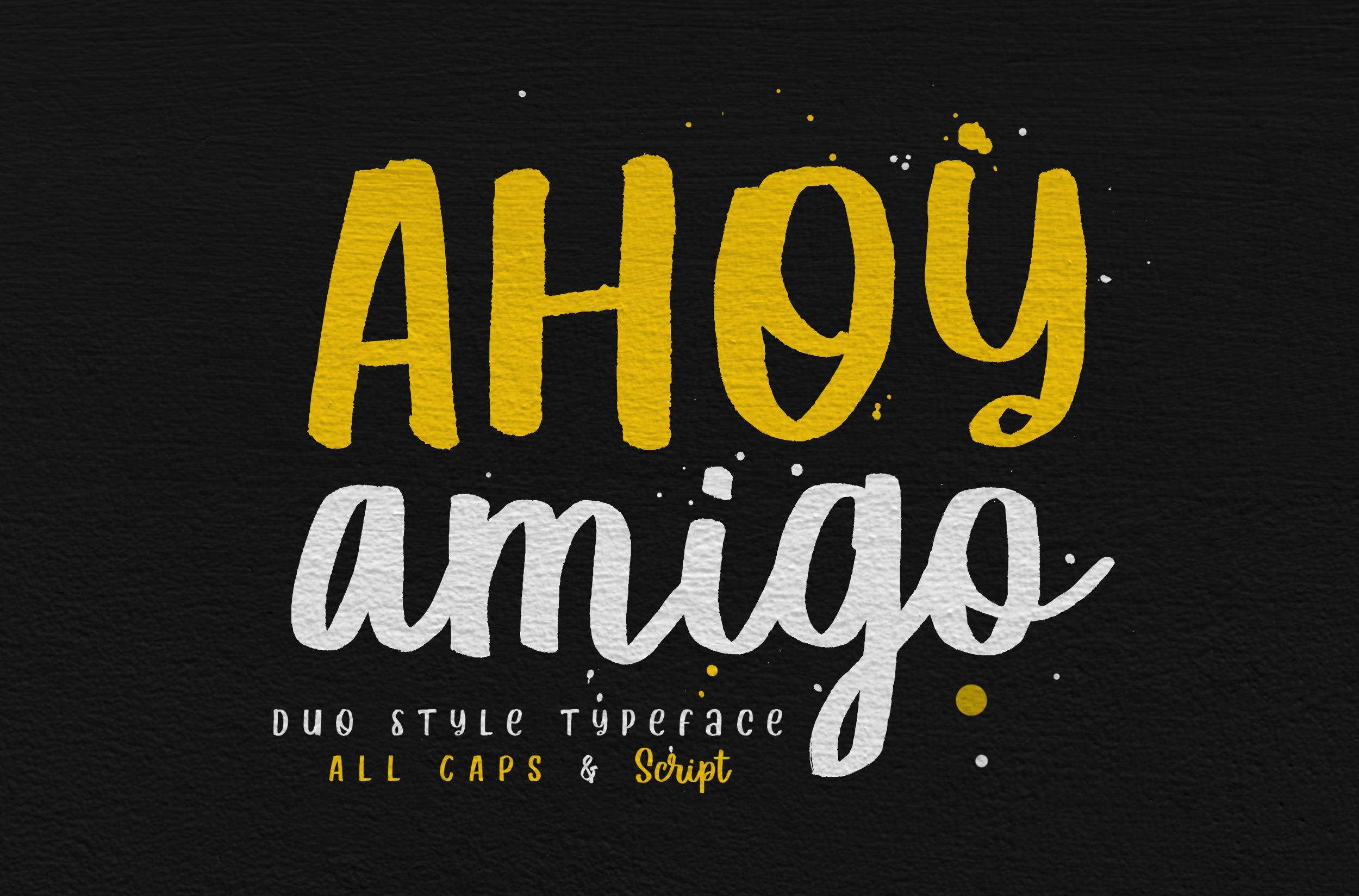
Ahoy Amigo - Duo Fonts
Say hello to Ahoy Amigo! A couple of all caps and script brush hand lettering font. Fully stroked by human hand with the authentic traditional handmade vibes to catch up your vintage crafted branding feels. Absolute perfectly imperfect.